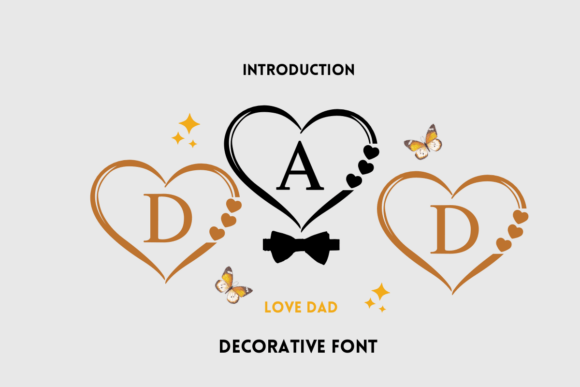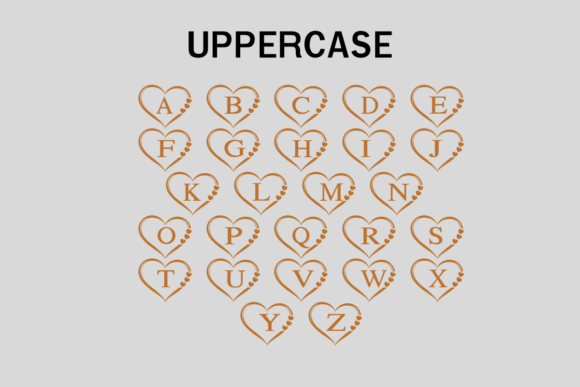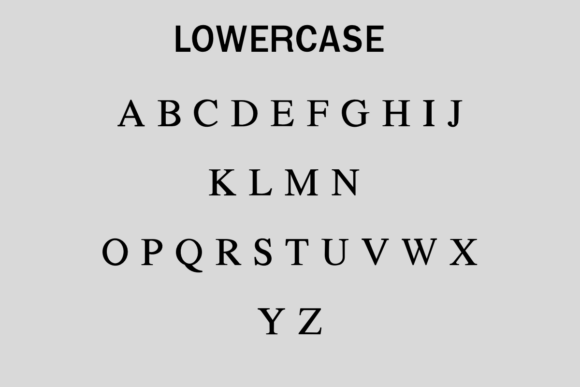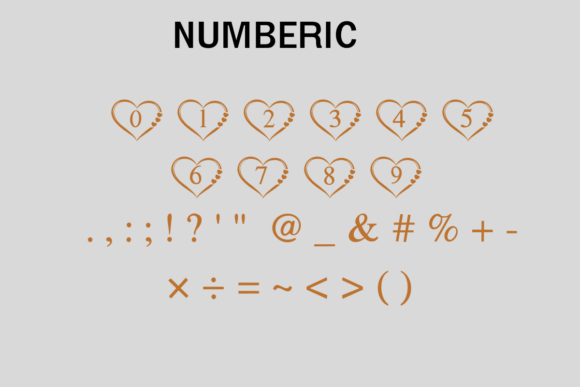
Love Dad Font
About the Love Dad Font
The wait is over! The incredible Love Dad Font is now available for your design toolkit. Love Dad is a decorative font. You can use it for taking notes, writing a diary, or making greeting cards. However, you can still use it for other designs, such as banners, content, mugs, cards, shirts, stationery, social media posts, and more!
Love Dad’s decorative style is ideally suited for headlines, short text blocks on branding materials, and eye-catching elements in social media graphics. It works well for packaging where a friendly, approachable feel is desired, or on greeting cards and stationery. However, its decorative nature makes it unsuitable for body text or lengthy paragraphs, and its legibility suffers at smaller sizes. Avoid using it in UI contexts or where high readability is paramount.
The font’s personality is undeniably warm and friendly, leaning towards a playful yet sophisticated aesthetic. This makes it a great choice for brands focused on family, handmade goods, or events celebrating love and togetherness.
Pairing Love Dad with a clean sans-serif font like Open Sans for body text will create a balanced and readable design. For a more playful feel, consider pairing it with a rounded geometric sans-serif, such as Montserrat. For a more elegant combination, a classic serif like Garamond could complement its decorative elements.
Love Dad Font Usage Examples
Love Dad Font Example